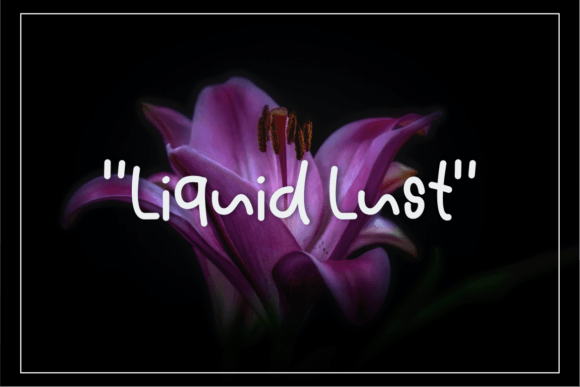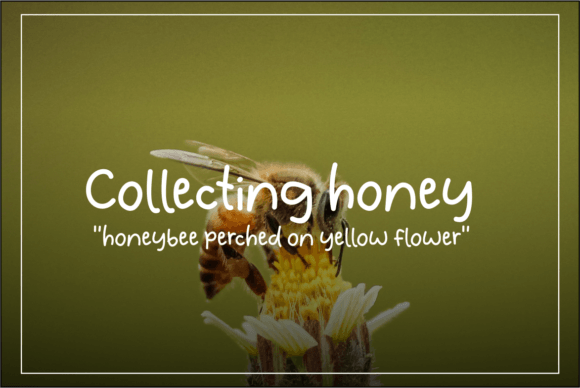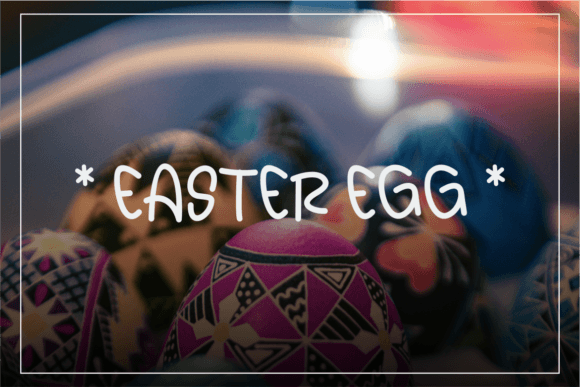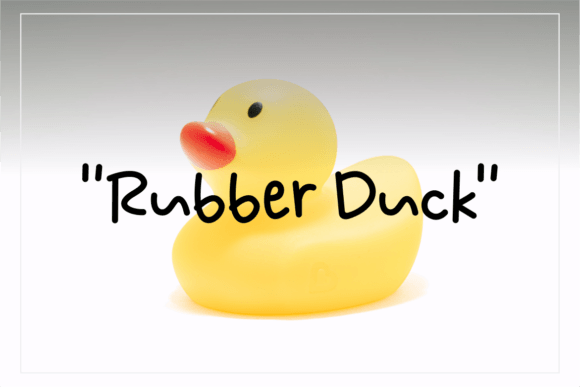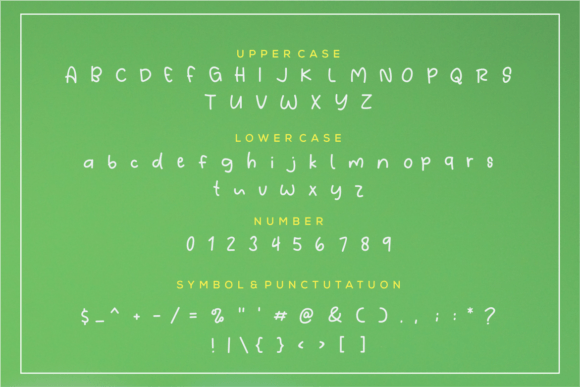
Introduction to Mixuemie Font
Have you ever been working on a creative project, and the perfect font eludes you? You’re scrolling through design resources, trying to find that one font that will elevate your entire concept. Suddenly, a beautifully handwritten font catches your eye – Mixuemie Font. Its sweet and friendly style is the perfect addition to any design, and its natural uniqueness makes it incredibly versatile.
Key Features of Mixuemie Font
- High-quality design resource for creative projects, offering a unique aesthetic.
- Features a transparent background, allowing for easy integration with different design elements.
- Designed to be highly versatile, making it suitable for a wide range of applications, from digital art to print materials.
- Available in a range of sizes, with a recommended resolution of 300 DPI for optimal display.
- Perfect for designers and artists looking for a distinctive and high-quality design resource for their creative projects.
- Can be easily customized and edited using popular design software, making it a valuable asset for any design resource library.
Honest Review: Mixuemie Font
As a designer, I’m always on the lookout for high-quality fonts to elevate my creative projects. Recently, I had the chance to try out the Mixuemie Font, and I must say it’s a great addition to any design resource.
- ✨ The Mixuemie Font has a unique, modern design that’s perfect for contemporary projects.
- ✨ It comes in a range of weights and styles, making it versatile for different design applications.
- ✨ The transparent background option is a great feature, allowing for seamless integration with other design elements.
- ⚠️ The Mixuemie Font may not be suitable for traditional or formal projects, as its modern design may come across as too trendy.
- ⚠️ The font’s limited character set may require additional font management for more complex projects.
Overall, I’m impressed with the Mixuemie Font’s quality and versatility. While it may not be the best fit for every project, it’s a valuable addition to any design resource. With its free download option and transparent background feature, it’s definitely worth checking out.
Mixuemie Font is perfect for creative projects that require a unique and stylish font. Use it for branding, marketing materials, or even as a design element in your website or app.
Alternatives to Mixuemie Font
Great Vibes is a high-quality, cursive font perfect for creative projects that require a touch of elegance. It’s ideal for wedding invitations, menus, and other design elements that need a romantic feel.
Great Vibes Font offers a more subtle and refined aesthetic compared to Mixuemie Font’s bold and playful style. It’s available for free download and features a transparent background, making it easy to use as a design resource.
Alex Brush is a beautiful, handwritten font suitable for projects that require a personal touch. It’s perfect for invitations, quotes, and other design elements that need a sense of warmth and personality.
Alex Brush Font is more delicate and intricate compared to Mixuemie Font’s bold and blocky style. It’s available for free download and features a transparent background, making it easy to use as a design resource for creative projects.